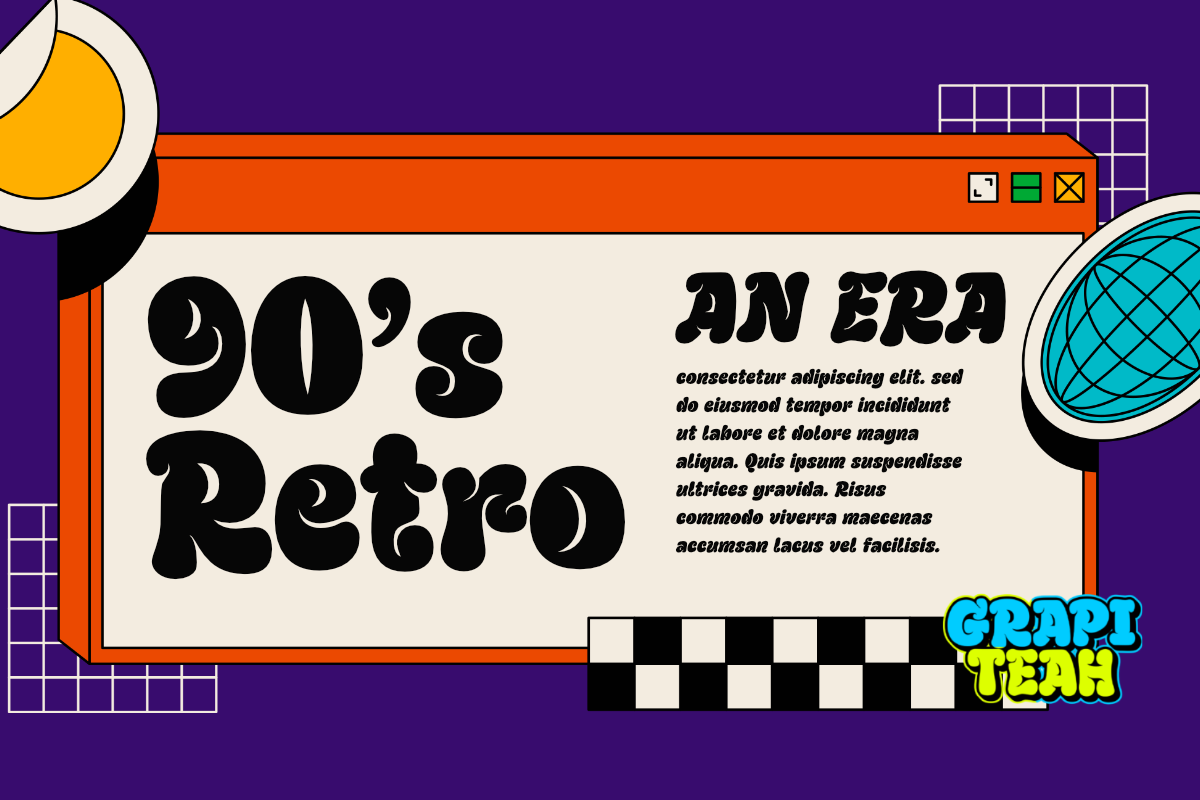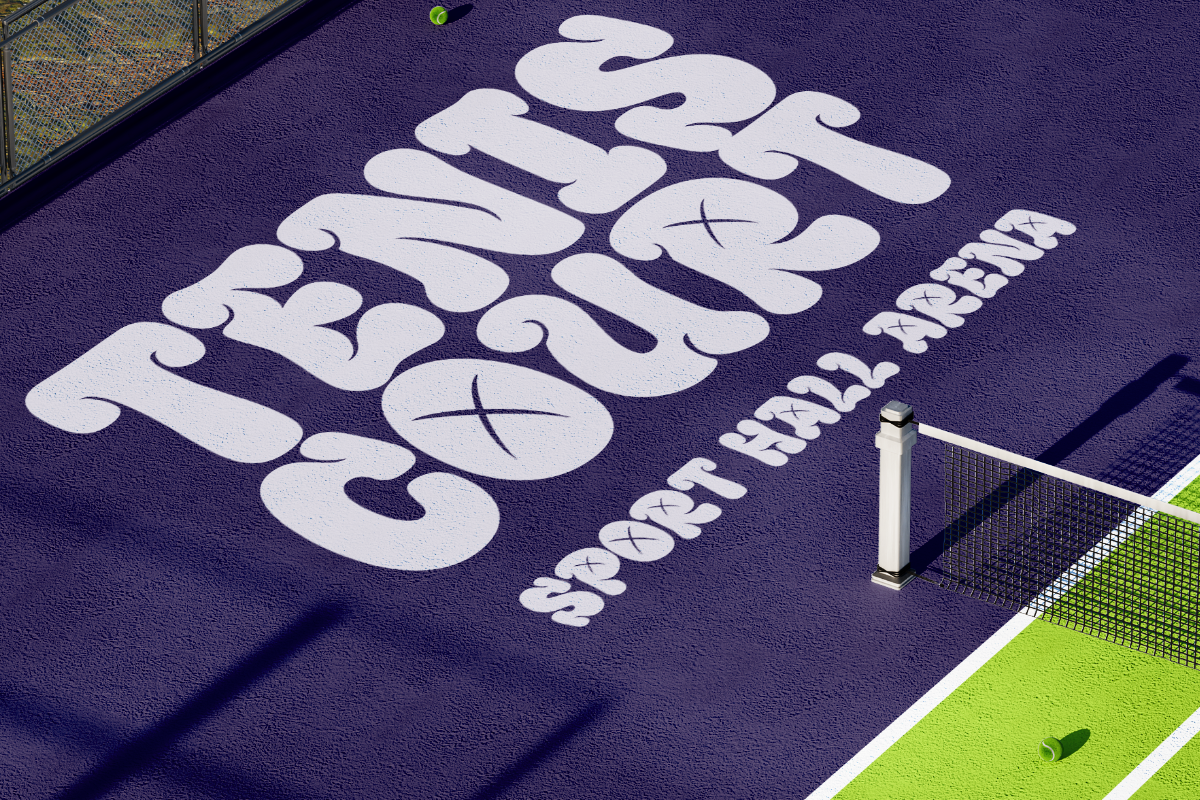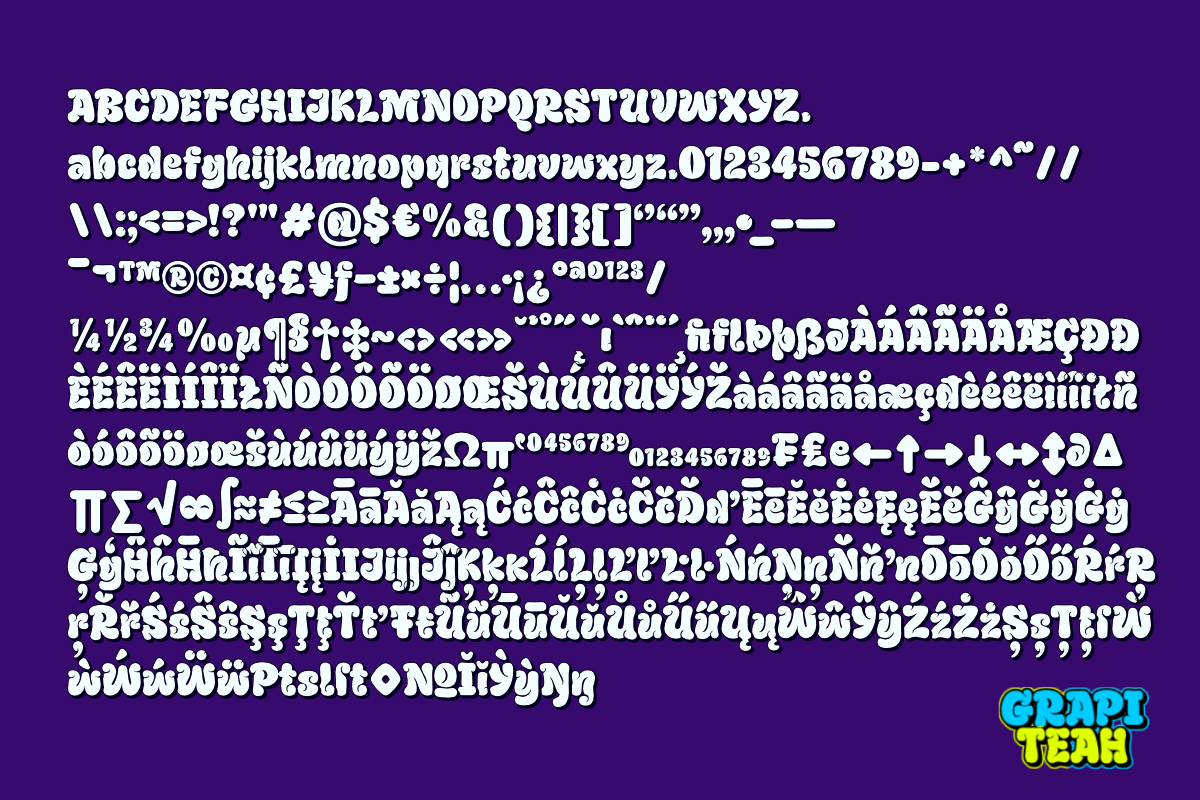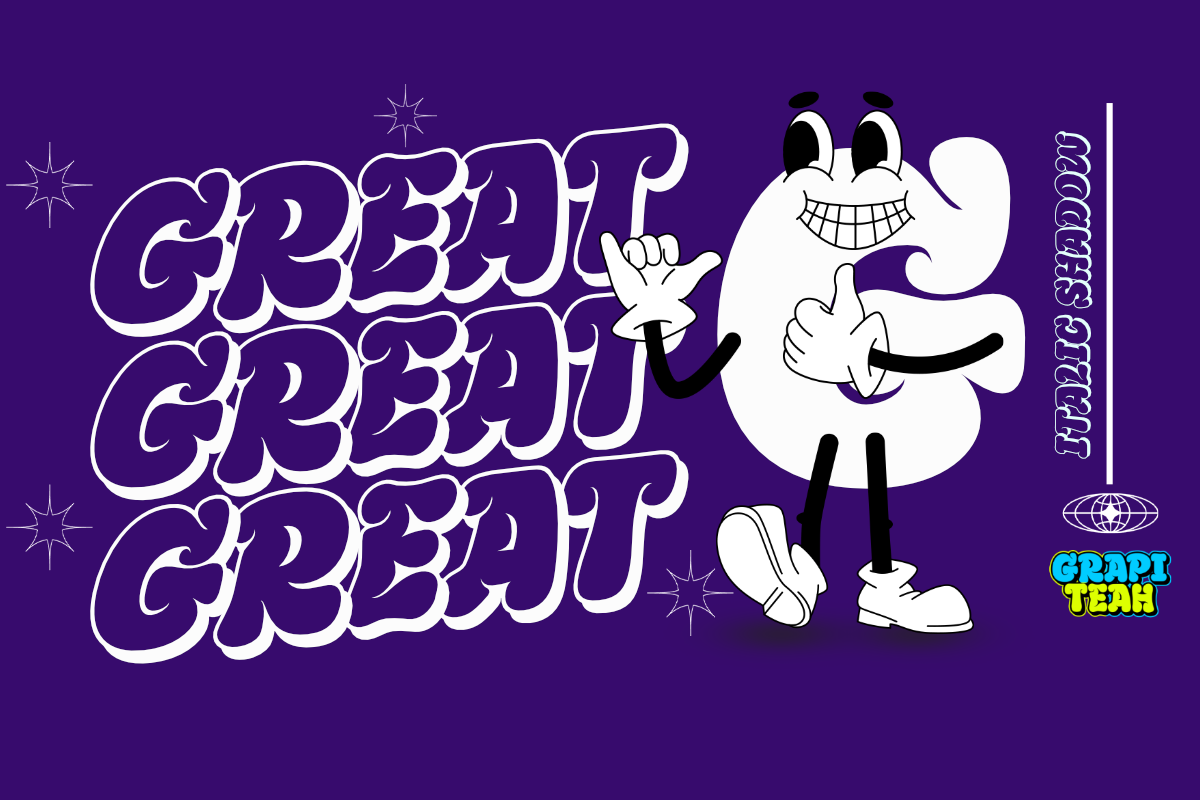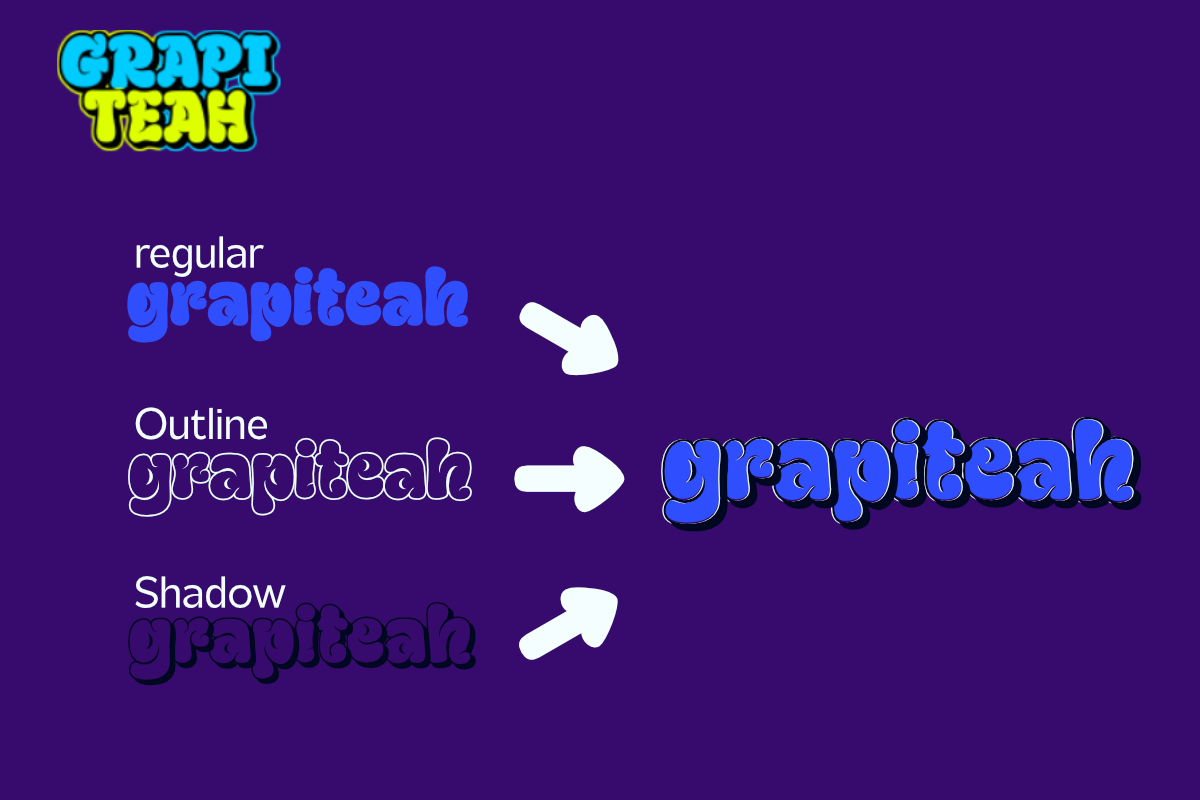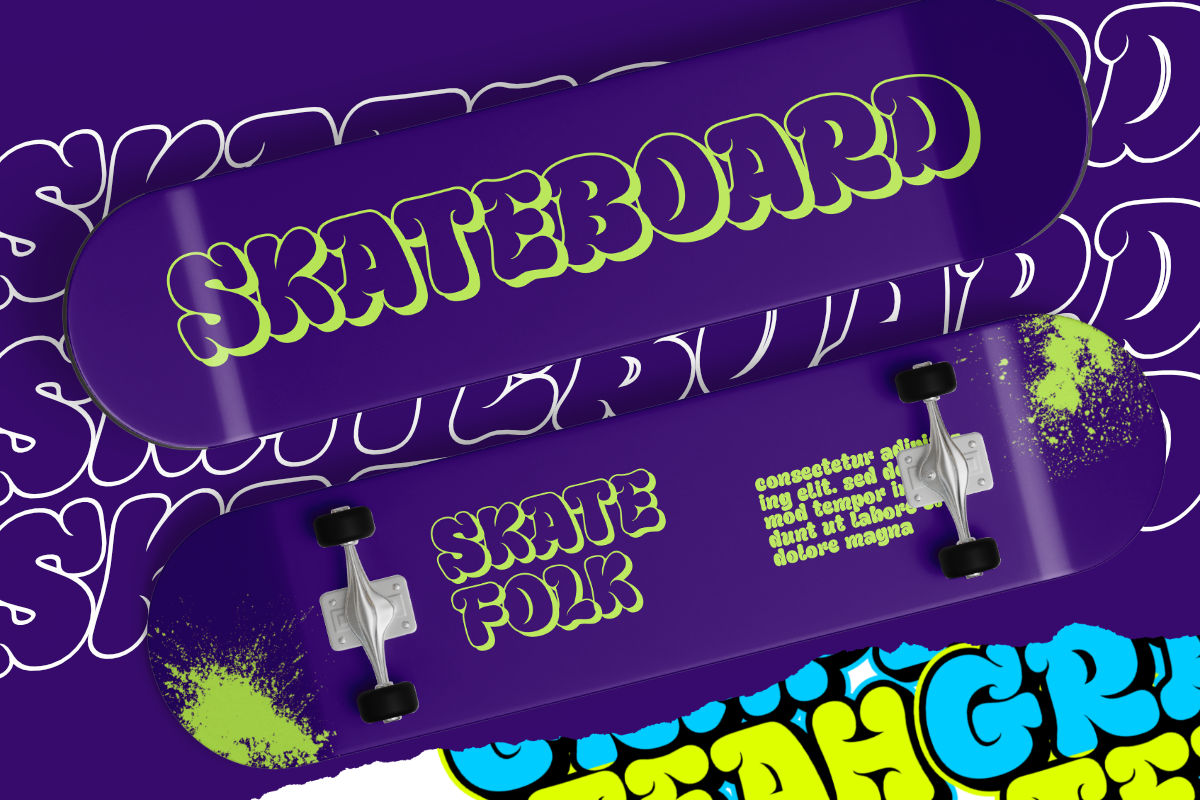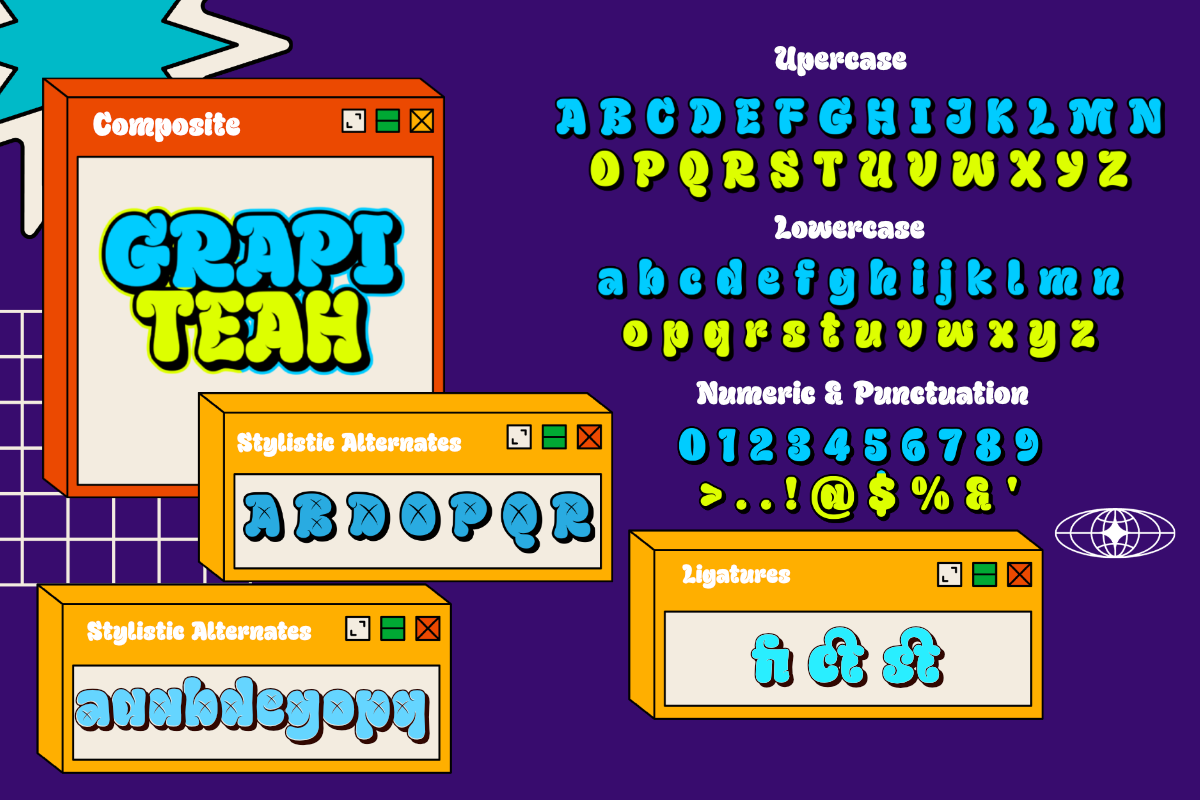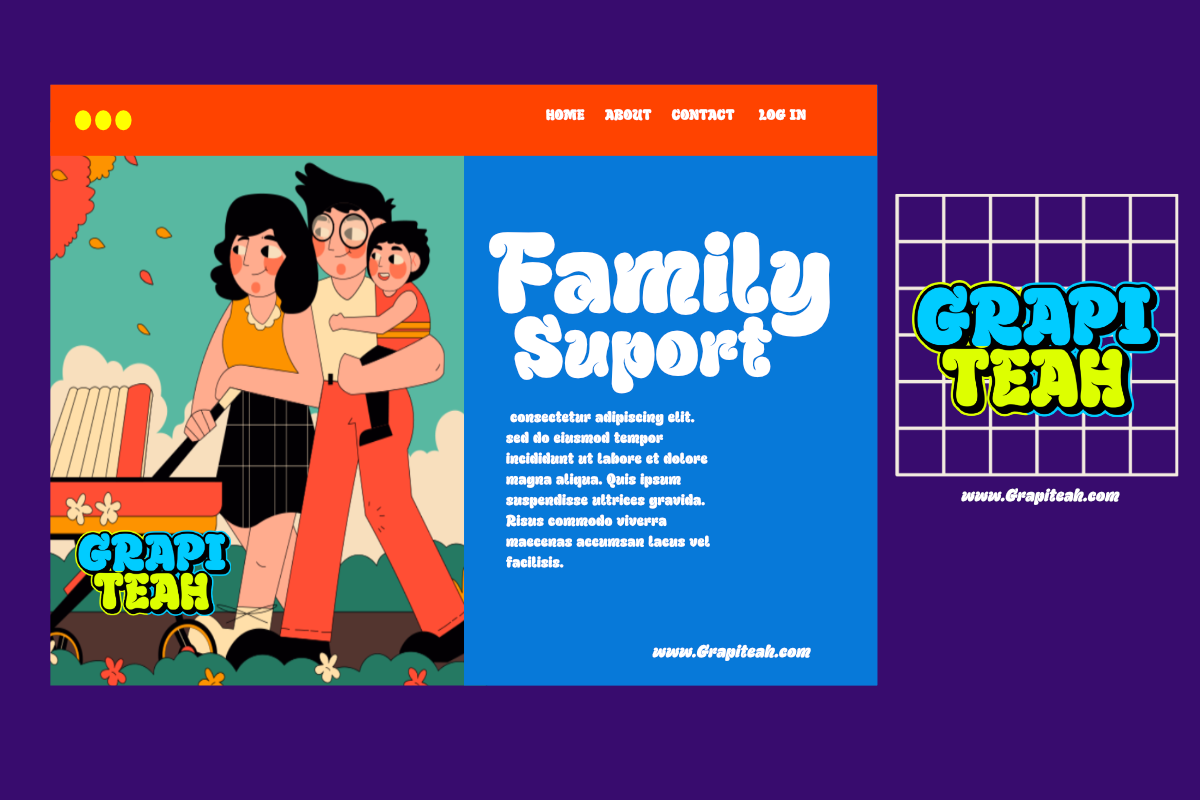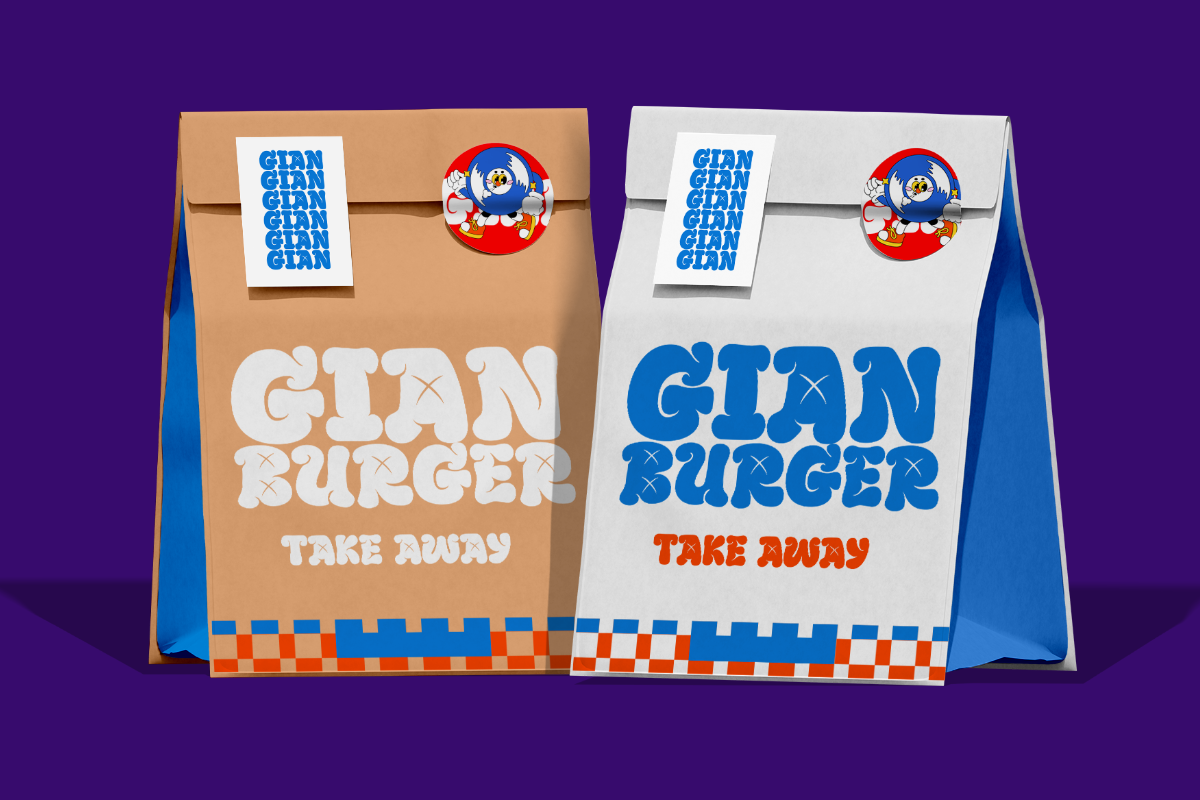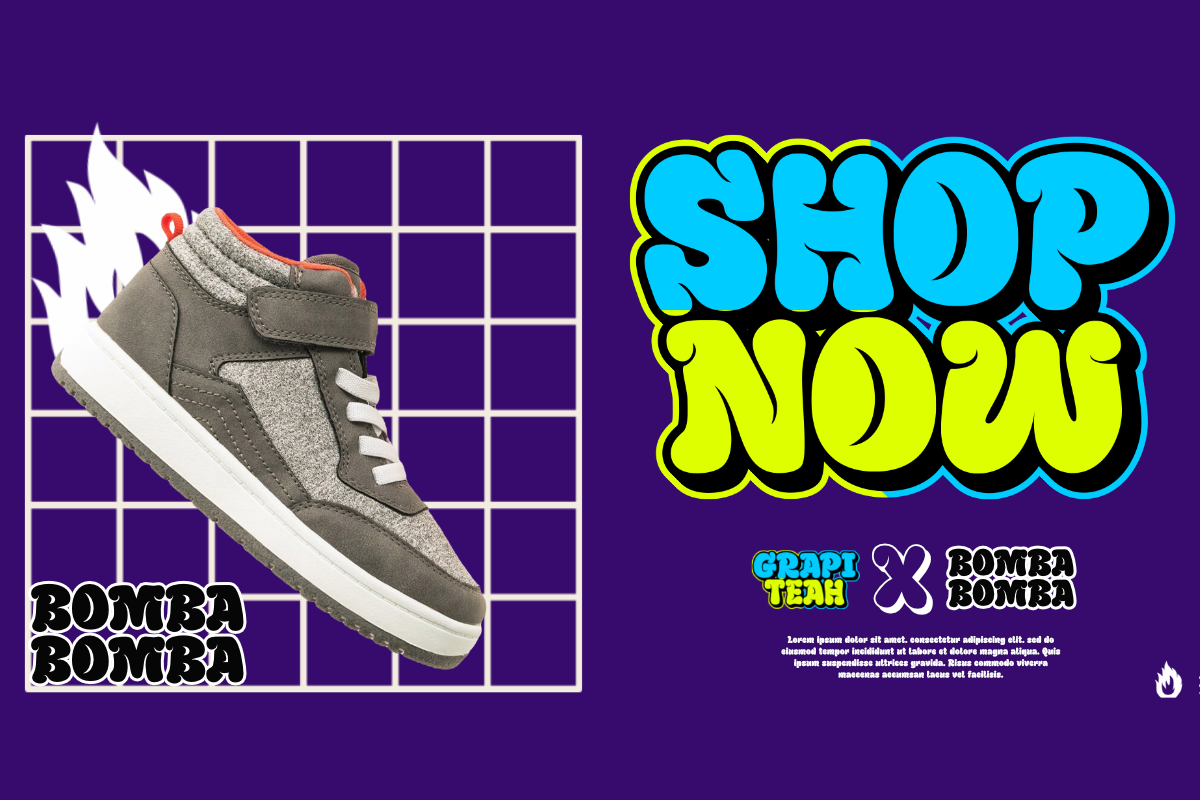
Grapiteah
Presenting Grapiteah, a font influenced by the unfiltered vitality and lively essence of graffiti street art. Consisting of six unique styles - Regular, Outline, Shadow, and their corresponding Italics, Grapiteah promises a diverse arsenal for your creative endeavors. It's perfect for curating stunning visuals, creating distinctive logos, or establishing your newest brand identity. Encapsulating an audacious, city-centric feel, Grapiteah ensures it makes an impression. Unleash your creative prowess with Grapiteah, and make every design your bold proclamation to the world.